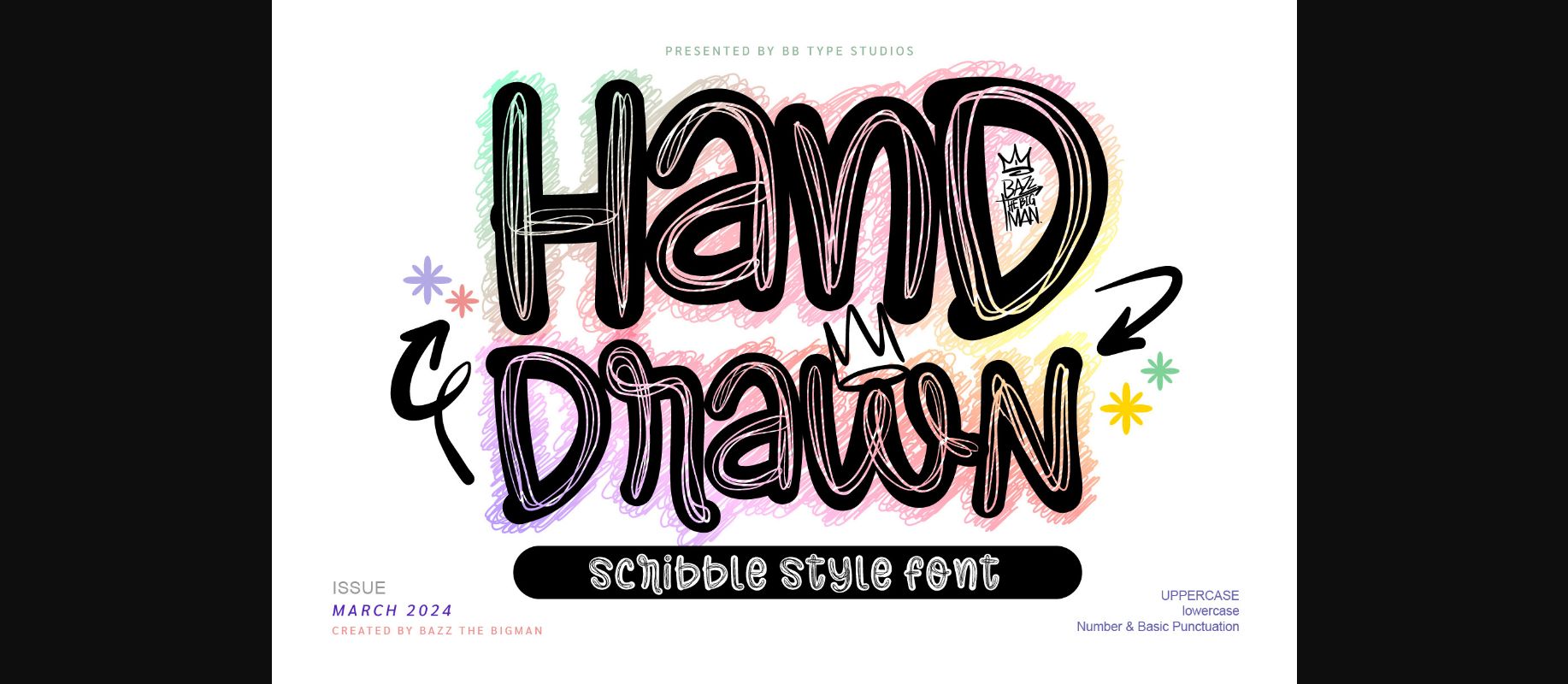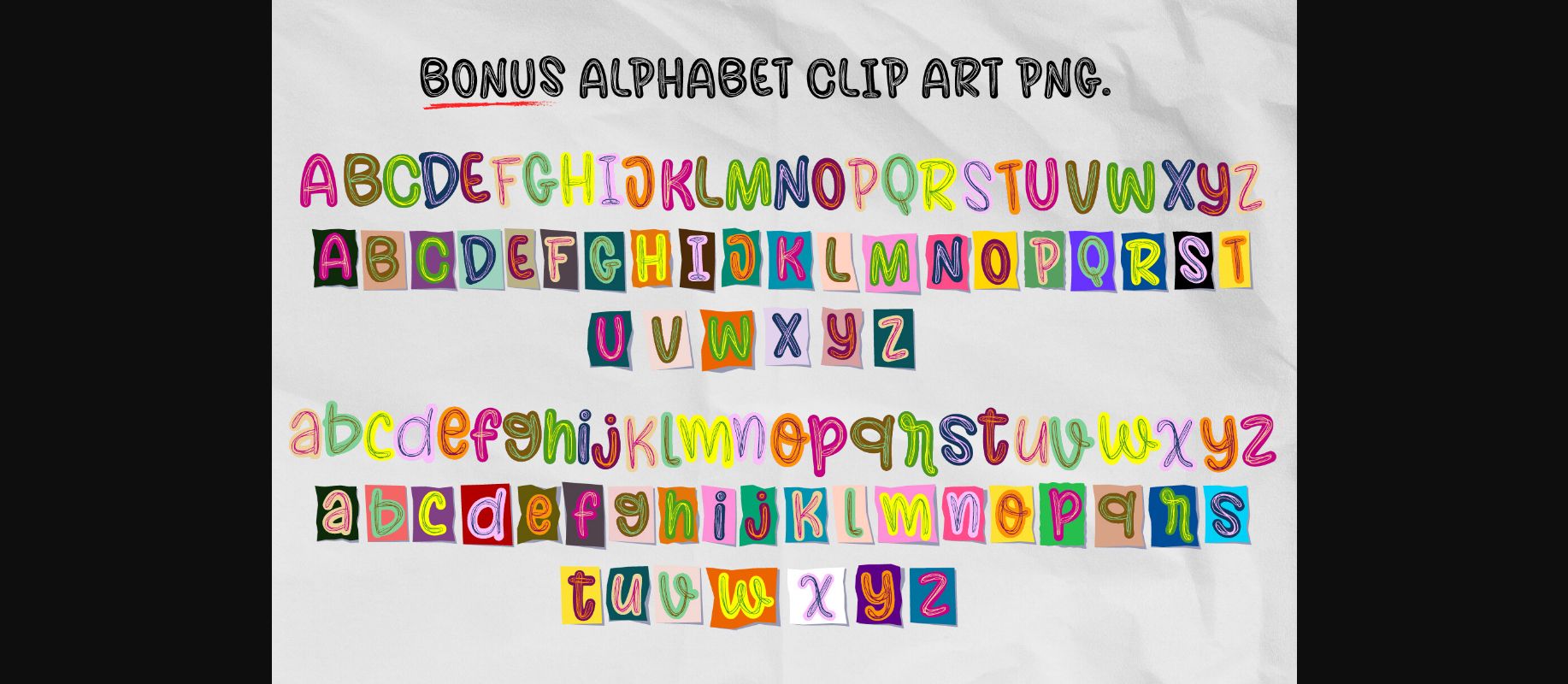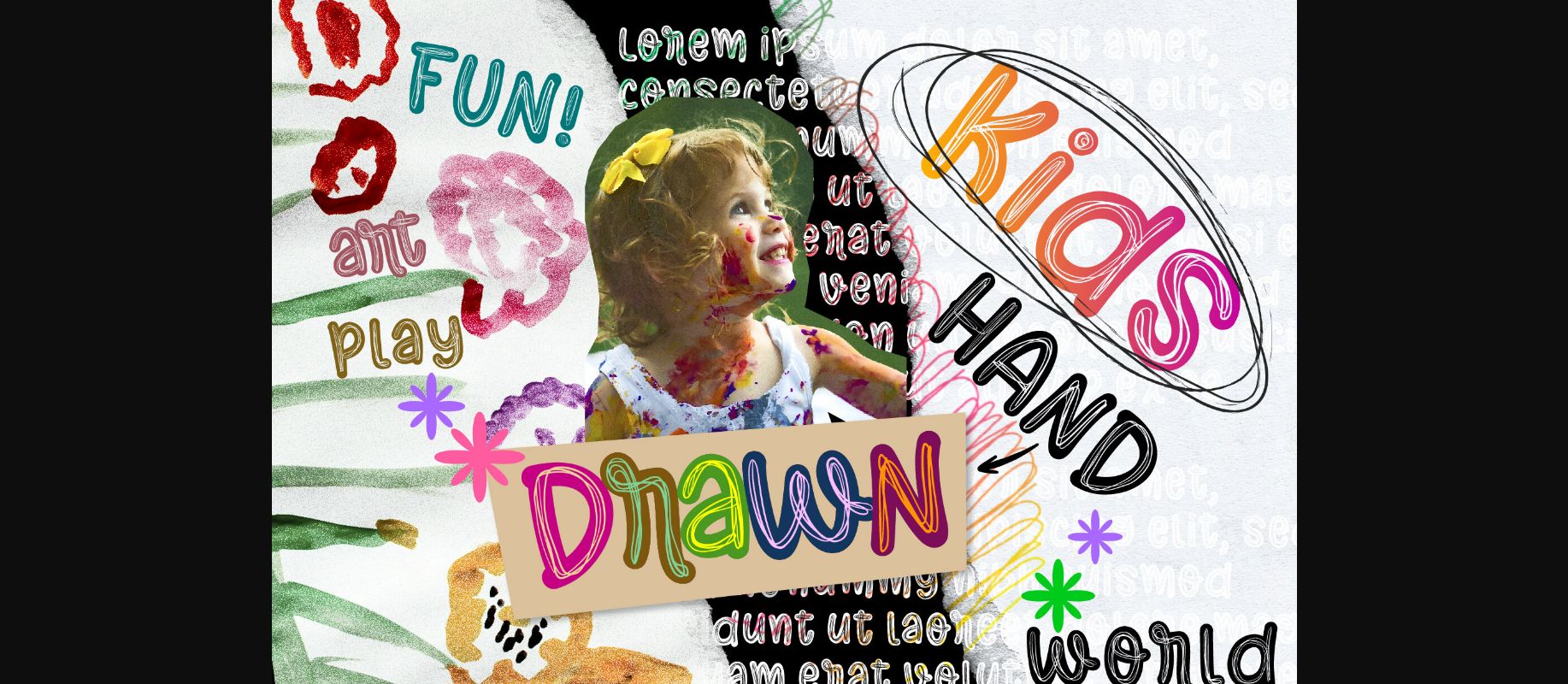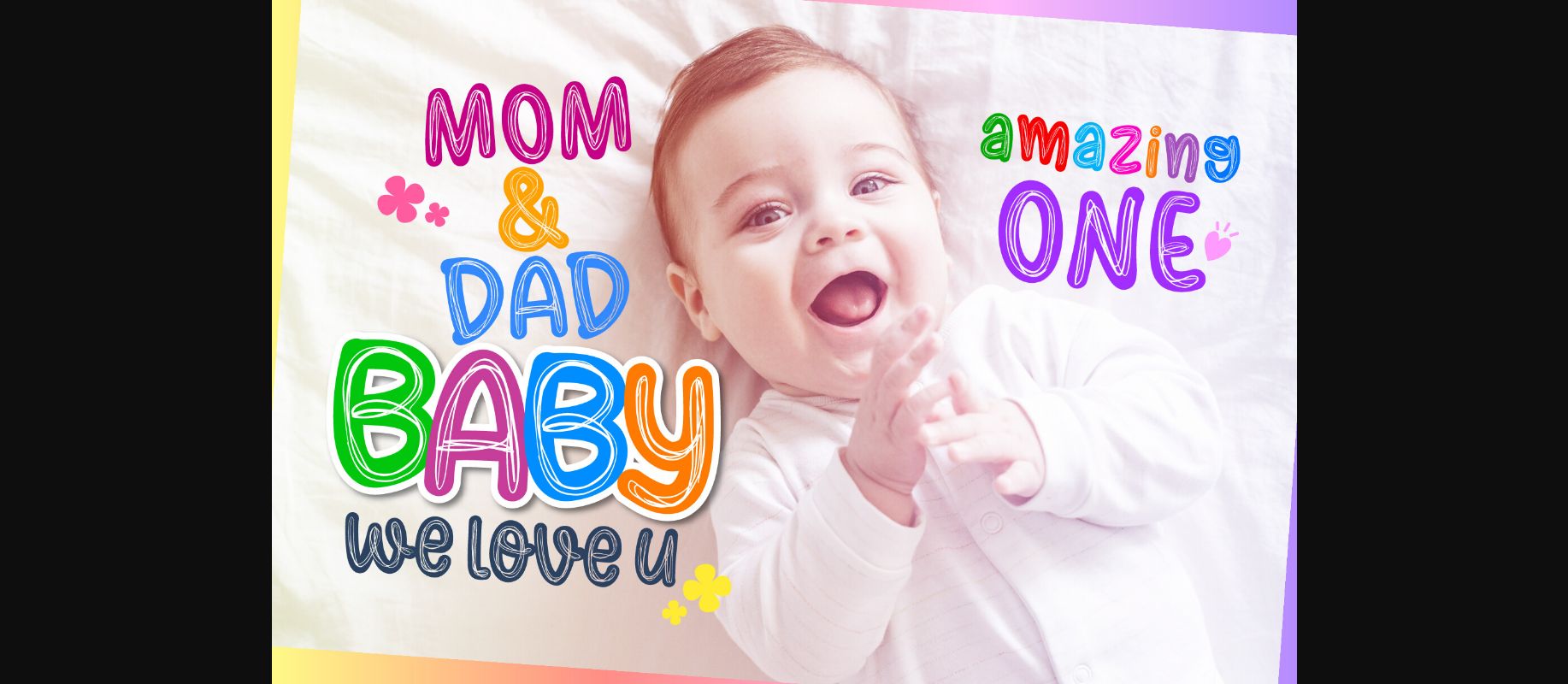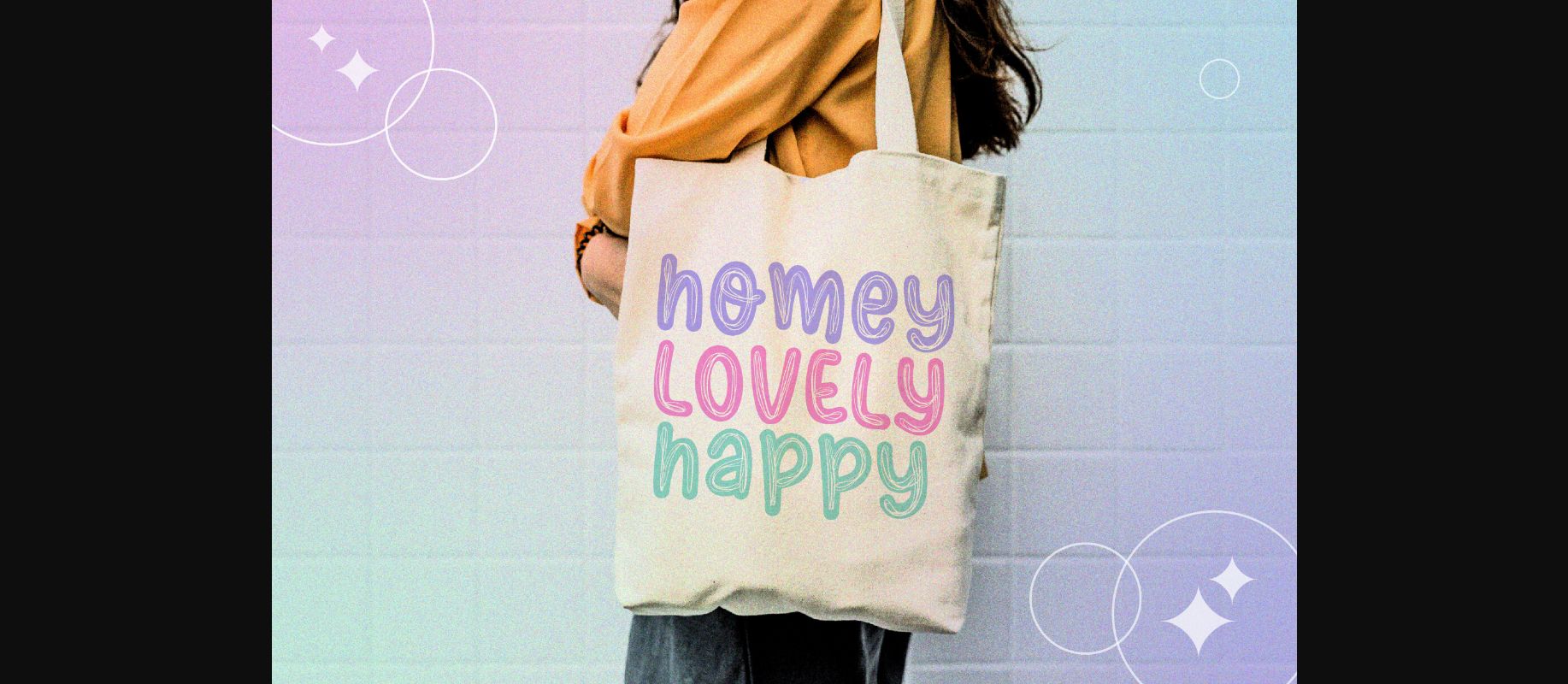
About Hand Drawn Font
Hand Drawn is a playful and fun typeface that features a hand-drawn, scribbled design, making it a great choice for designs aimed at children or anyone looking to add a touch of playfulness to their project. This font would work well for a variety of designs, such as book covers, posters, invitations, and more.